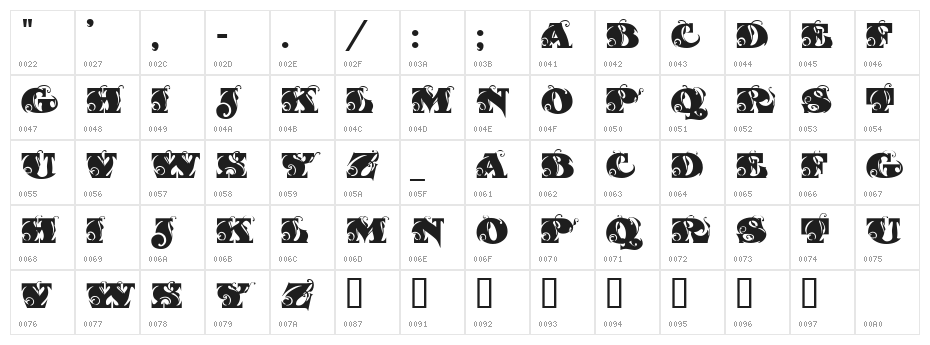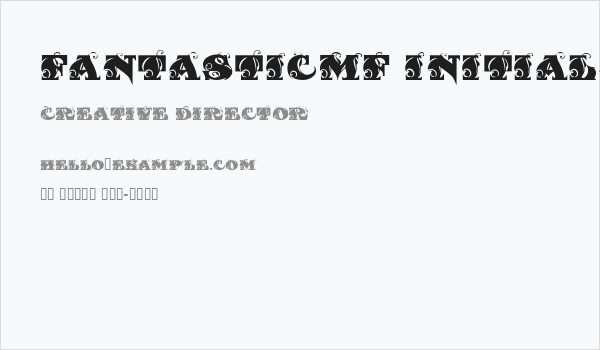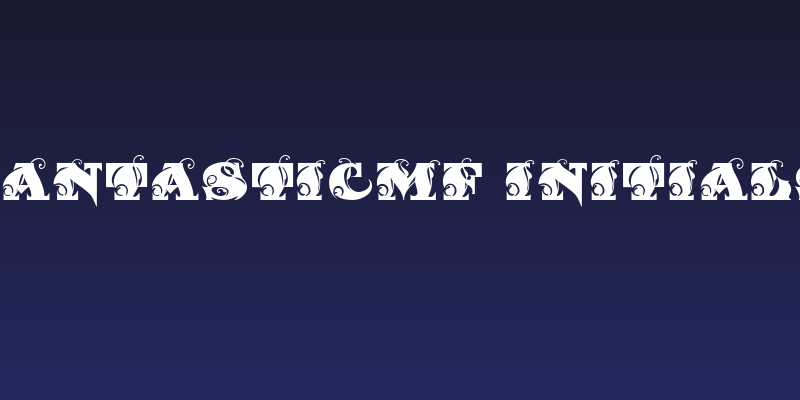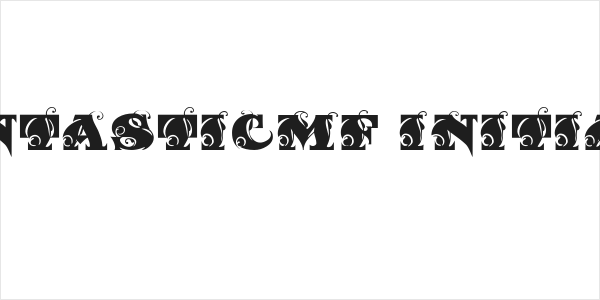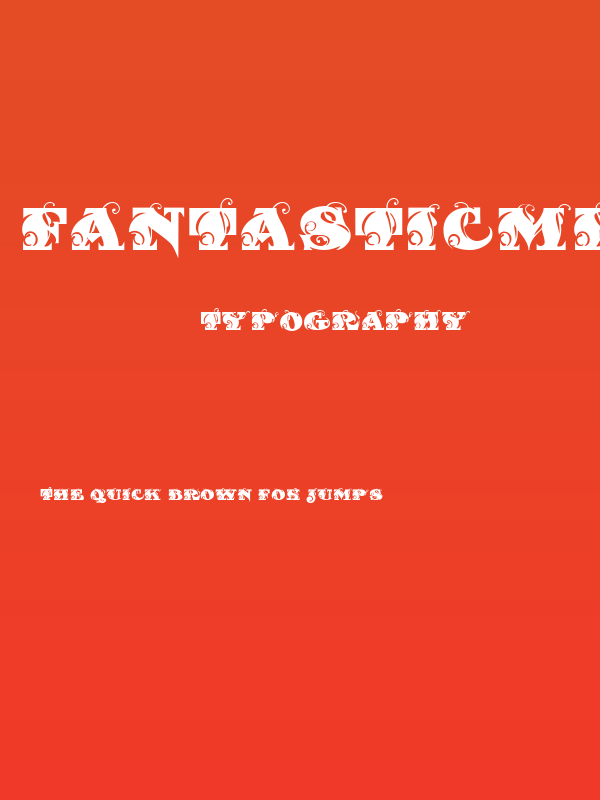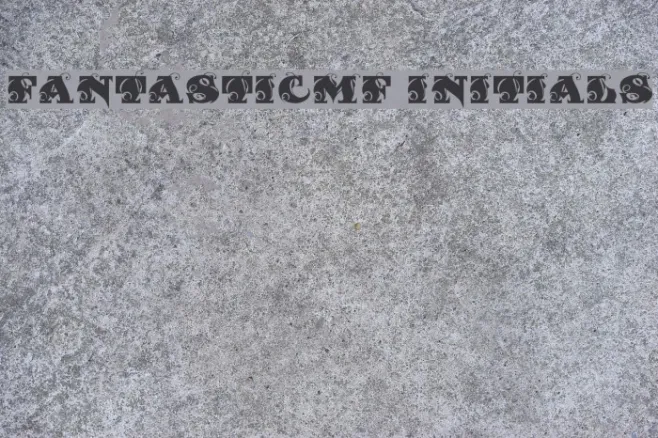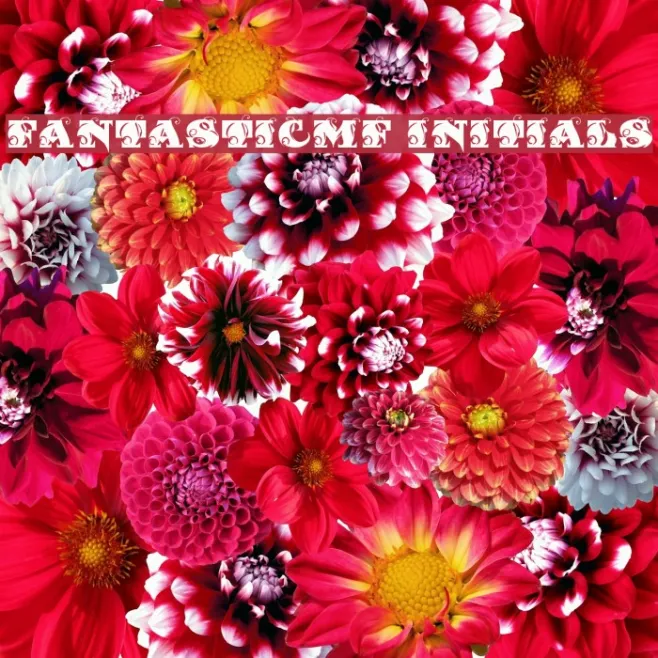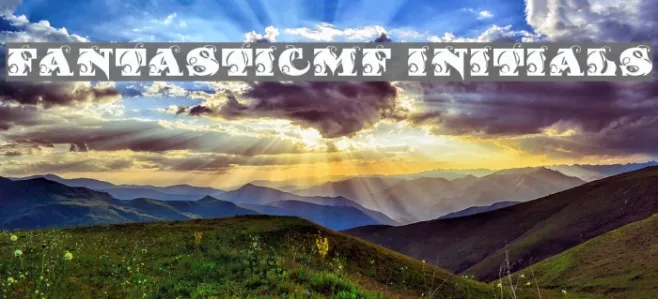
FantasticMF Initials Font
FantasticMF Initials Description
This font features an ornate and decorative style, characterized by intricate swirls and flourishes integrated into each letter. The uppercase letters are bold and striking, with a high level of detail that gives them a unique and artistic appearance. The design is reminiscent of vintage or baroque styles, making it ideal for projects that require a touch of elegance and sophistication. The font's elaborate nature suggests it is best suited for display purposes rather than body text, as the intricate details may reduce legibility at smaller sizes.
| Proposed Projects | Ideal for wedding invitations, luxury branding, decorative posters, and artistic projects. |